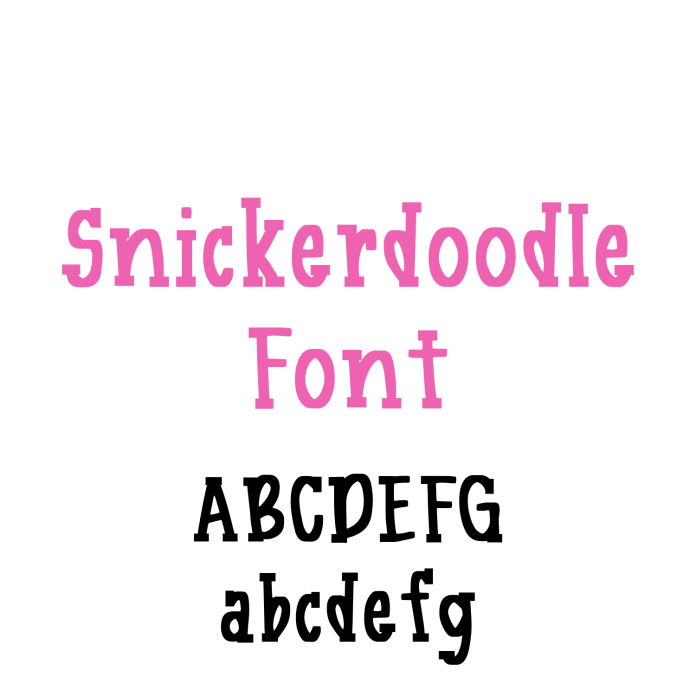
Introducing Snickerdoodle Font, a warm and whimsical serif font perfect for all your crafting and design projects! With its classic charm and handcrafted feel, Snickerdoodle adds a cozy, elegant touch to greeting cards, labels, home decor signs, and more. Its smooth lines and well-balanced spacing make it ideal for cutting machines, printables, and digital designs. Whether you're personalizing gifts or creating beautiful typography art, this versatile serif typeface brings timeless style to any creation. Easy to cut and delightful to use, Snickerdoodle Font is a must-have for makers who love mixing creativity with character. Download today and start crafting!